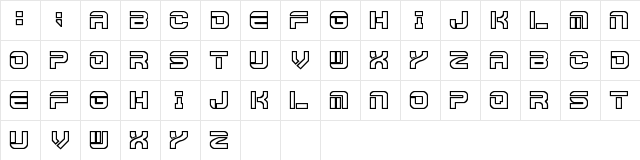
Futura Regular
| Foundry | Spacefish Productions |
| Designer | Martin Holm |
Design Context for Futura Typeface
Futura has a distinctly futuristic character, with geometric precision and clean angles that feel at home in technology, gaming, and sci-fi contexts.